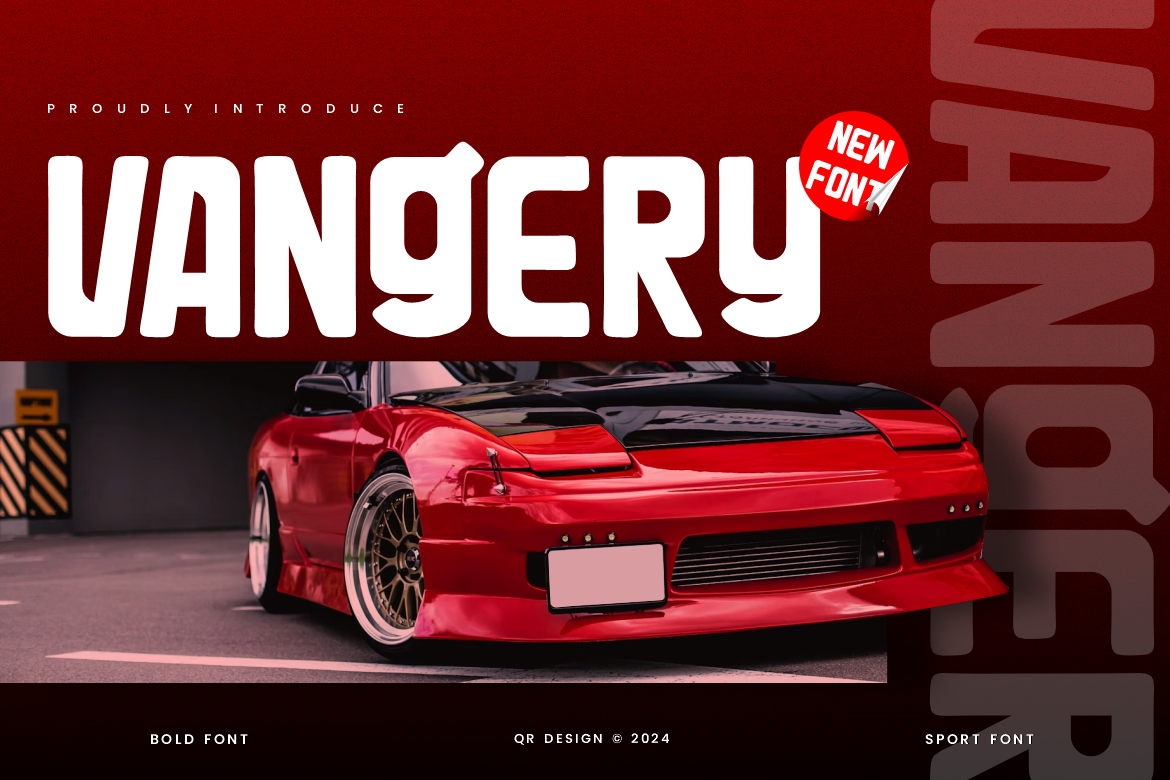
Vangery - Sport Car Font
Vangery Font is a sport and authentic display font. The font is suitable for any branding project like poster, logo, sport, and many more. Outstanding in a wide range of contexts.